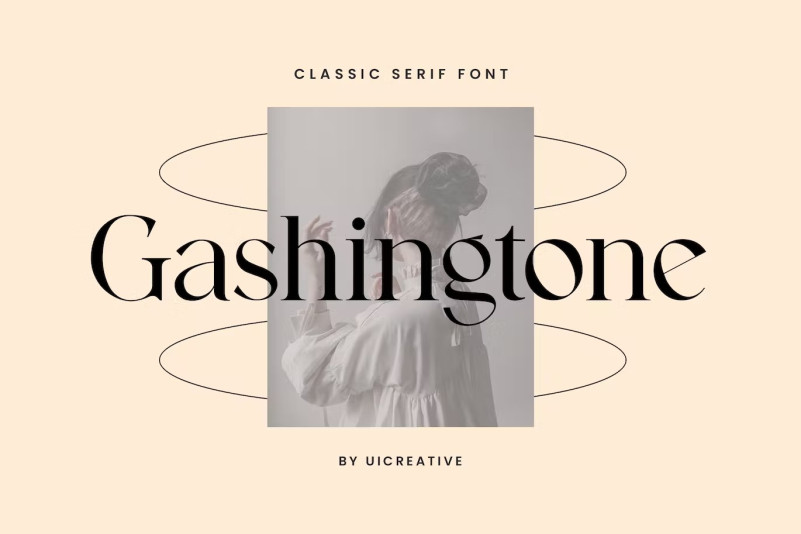
Gashingtone classic serif font
This is our new product, the name is Gashington Classic Serif Font . A classic serif font that is beautiful, sleek, and modern. This font is ideal for a wide variety of projects, such as signature, stationery, logo, wedding, typographic quotes, magazine or book covers, website headers, apparel, branding, packaging design, etc. Additionally, fashion-related branding or editorial design exhibits qualities that are both masculine and